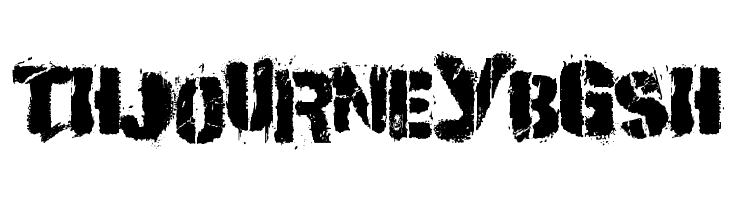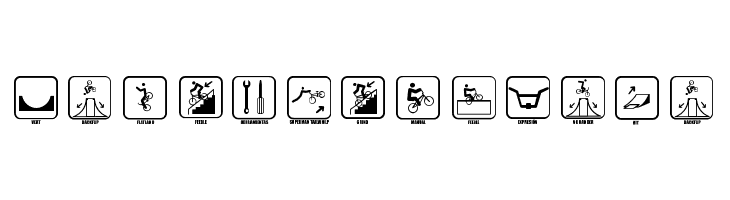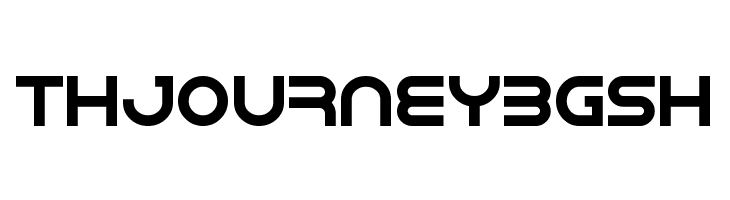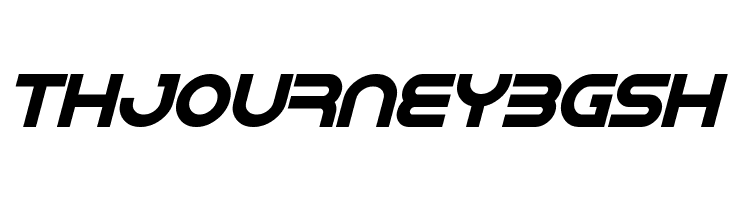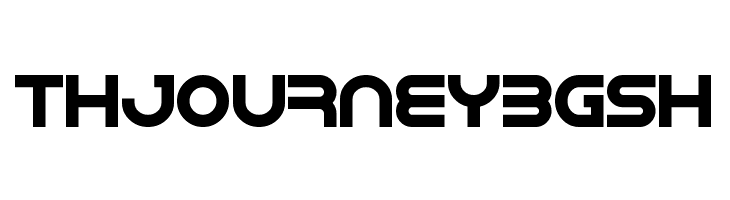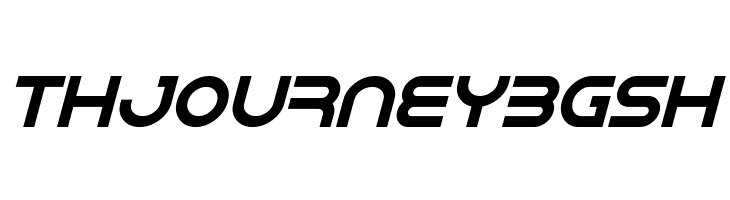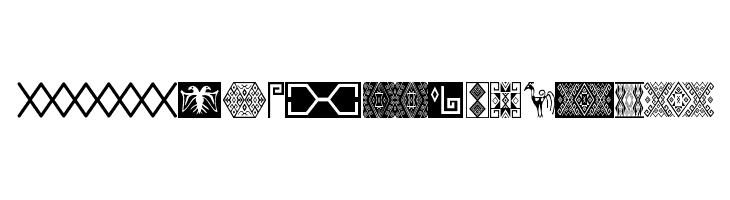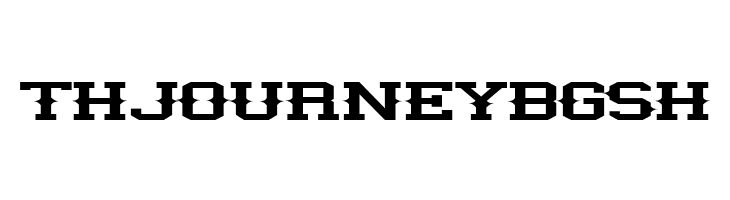
• ICONO BMX
( Fonts by Rodrigo German - RASDESIGN )
BMX and cycling-themed pictogram dingbat font.
• Icons South St
( Fonts by Southype )
Bold, geometric icon set with high contrast and clear shapes.
• IDroid
A bold, futuristic font with geometric and rounded letterforms.
• IDroid Bold
A bold, futuristic font with geometric shapes and a modern aesthetic.
• IDroid Bold Italic
A bold, italicized font with a futuristic and dynamic design.
• IDroid Italic
A futuristic, italic font with bold, geometric characters and a modern aesthetic.
• If
( Fonts by Christopher Hansen )
A bold, distressed font with a gritty, urban street art style.
• Ikatan
( Fonts by Didik Pratikno )
Ornamental font with tribal and geometric motifs, ideal for decorative use.
• illini spike
A bold, angular font with a geometric and aggressive style.
• ILLINOIS block